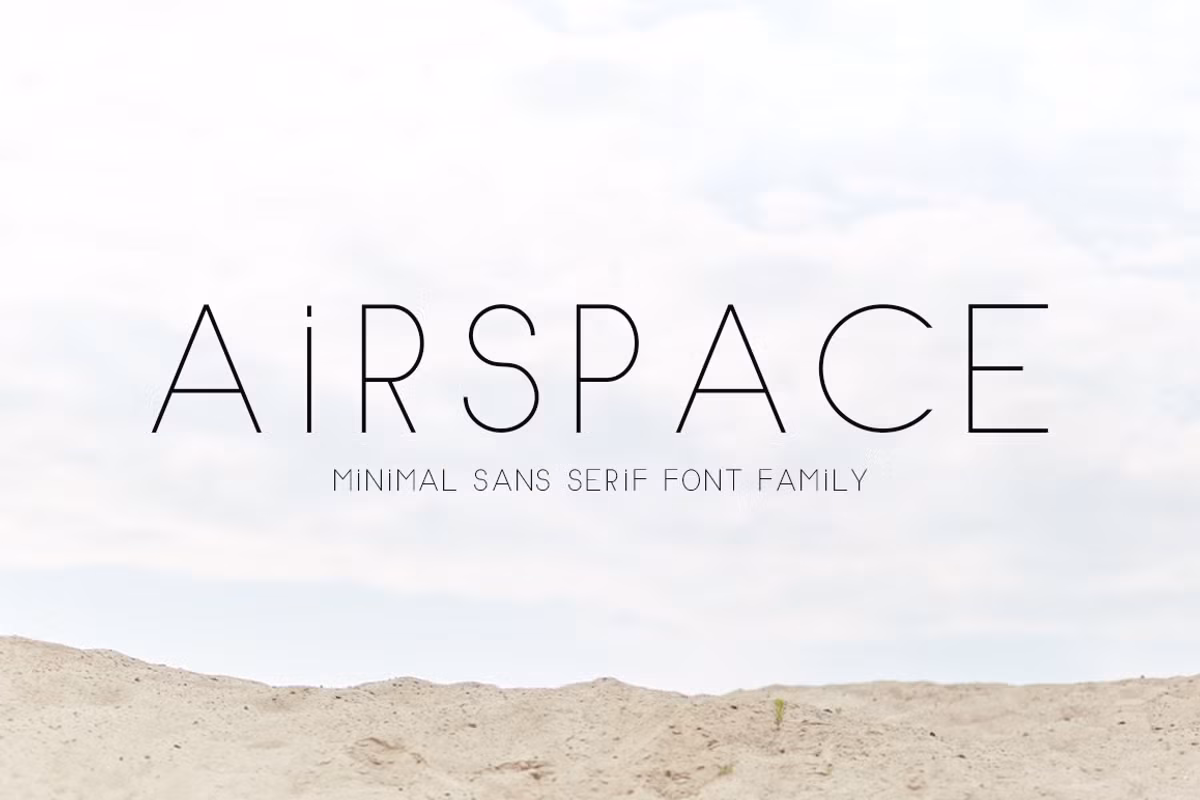
AIRSPACE | Minimal Sans Serif Font Free Download
You must purchase this font for commercial use. However, you can download AIRSPACE | Minimal Sans Serif Font Free Download for testing purposes. Airspace is a clean and modern sans-serif font that exudes minimalism and sophistication. With its sharp, geometric lines and straightforward design, this font is perfect for high-end branding, corporate websites, editorial designs, and any project that requires a sleek, professional look.
The simplicity and versatility of AIRSPACE allow it to work seamlessly in a variety of applications, from logos and headlines to body text and product packaging. Its modern design ensures clarity and readability, while maintaining a polished, contemporary style.